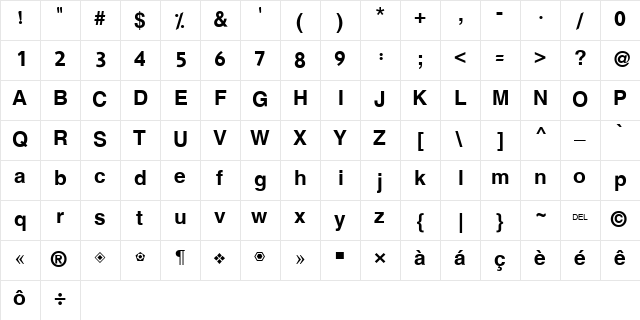
Hacen Promoter Regular
Design Context for Hacen Promoter Typeface
Hacen Promoter offers clean, dependable letterforms without strong stylistic allegiance, making it a practical choice for designers who need flexibility.